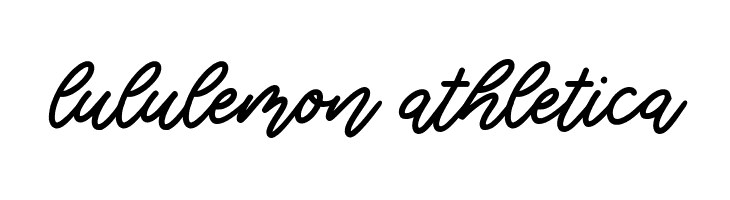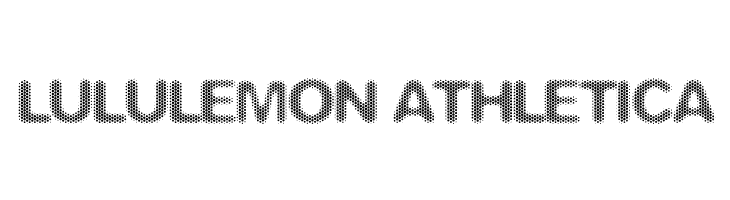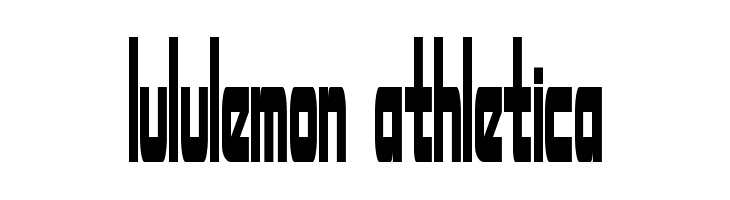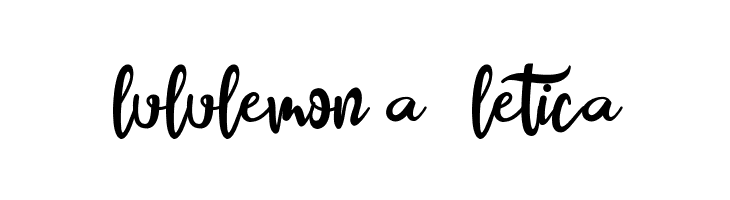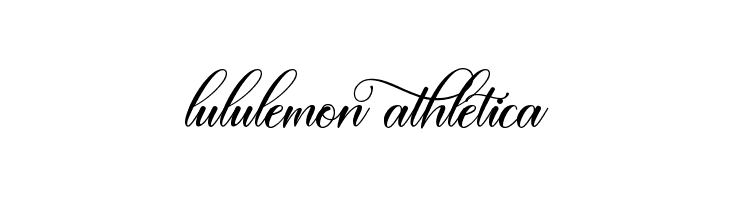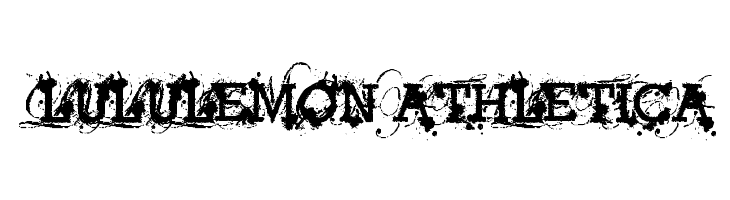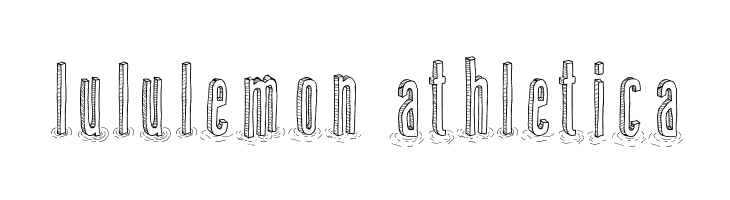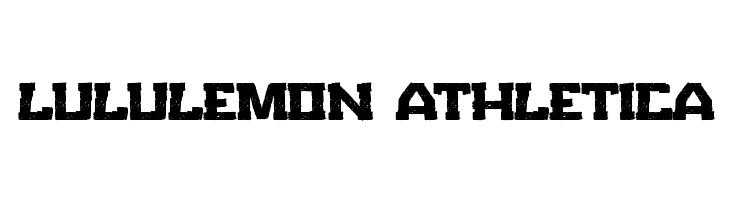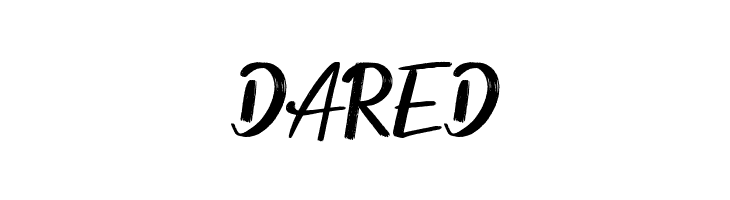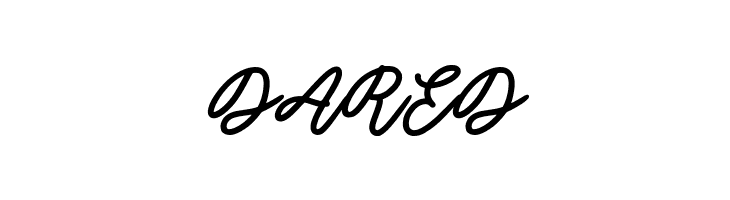
A dynamic, expressive handwritten font with fluid, playful letterforms.
A decorative, hand-drawn font with a 3D shadow effect and wavy baseline.
A bold, condensed typeface with tight spacing and strong visual impact.
A bold, distressed font with a rugged, textured appearance.
A bold, expressive handwritten font with brush-like strokes.
A bold, decorative font with a grunge and distressed style.
A bold, dotted font with a unique, textured appearance.
A fluid, cursive script font with elegant, interconnected strokes.
An elegant script font with flowing, cursive strokes and intricate flourishes.